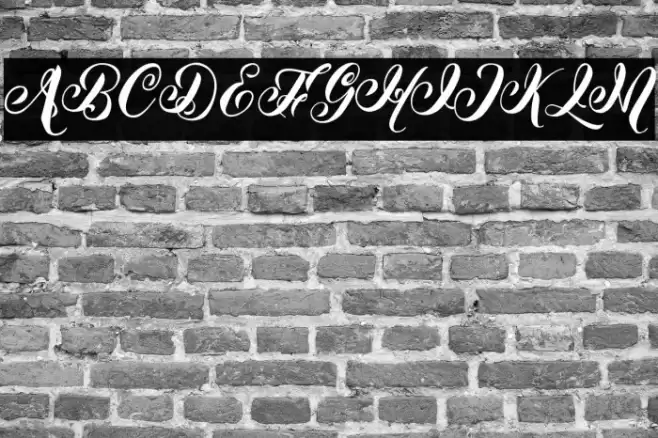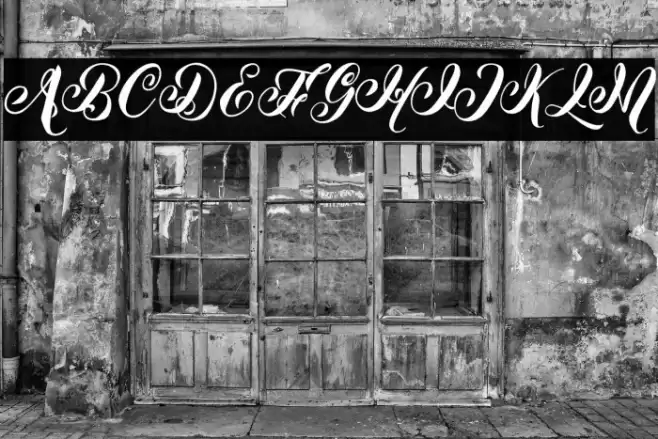
Hefaloscript Font
Hefaloscript Description
This font exudes elegance and sophistication with its flowing, cursive style. Each letter is intricately designed with graceful loops and swirls, creating a sense of movement and fluidity. The uppercase letters are particularly ornate, featuring elaborate flourishes that add a touch of drama and flair. The lowercase letters maintain a consistent style, with smooth, connected strokes that enhance readability while preserving the decorative nature of the font. The overall appearance is both classic and artistic, making it suitable for projects that require a touch of refinement and creativity.
An elegant, cursive font with intricate loops and swirls from Uncategorized fonts.
- Font: Hefaloscript
- Proposed Projects: Ideal for wedding invitations, greeting cards, branding, and elegant signage.
- Overall Style: Classic
- Use Case: Logos, Invitations, Decorative text